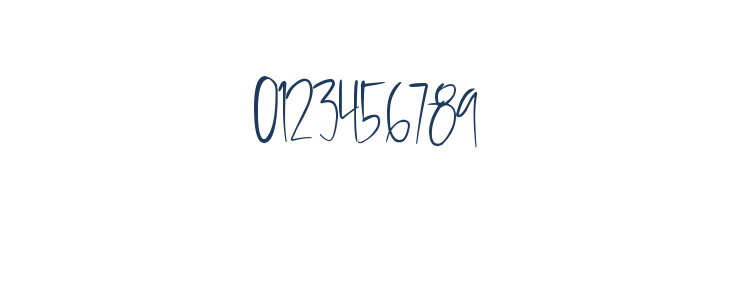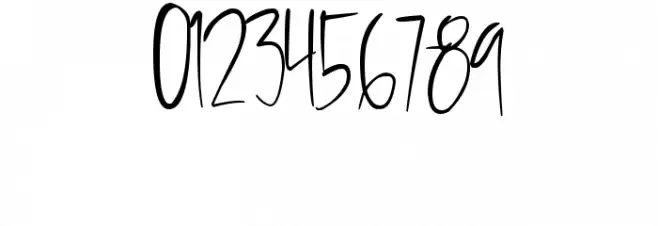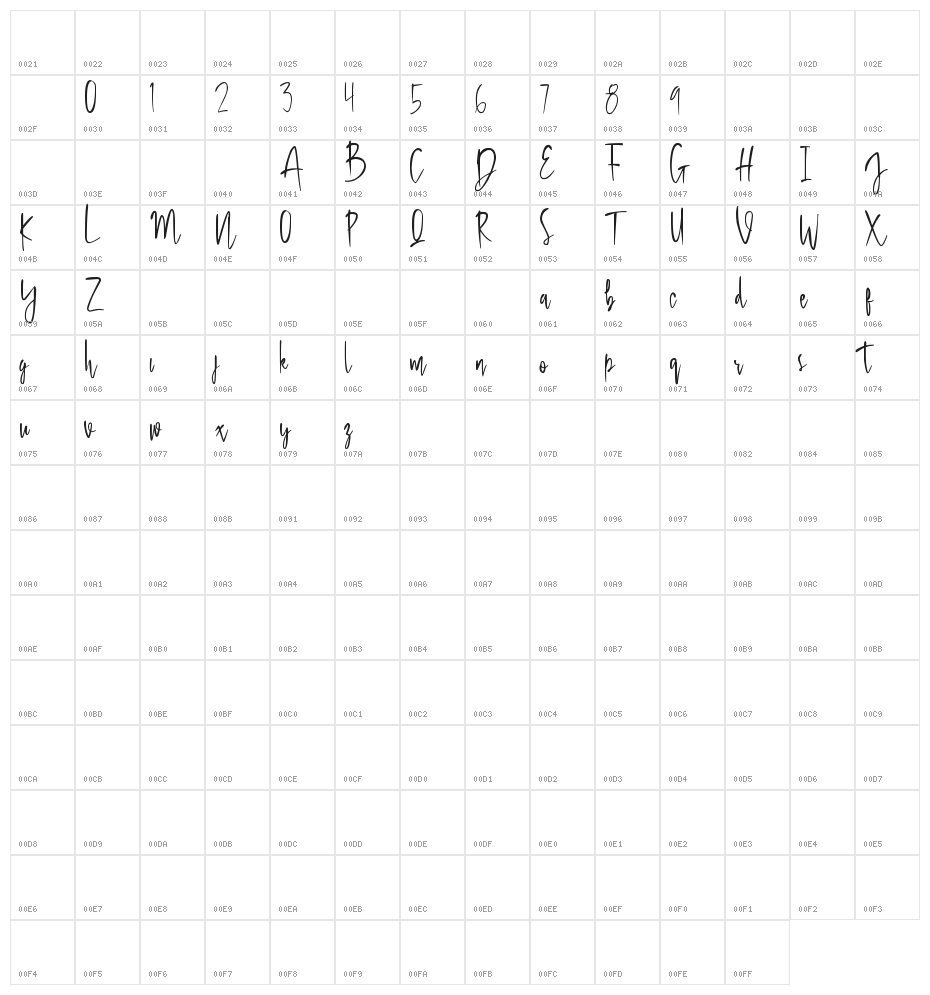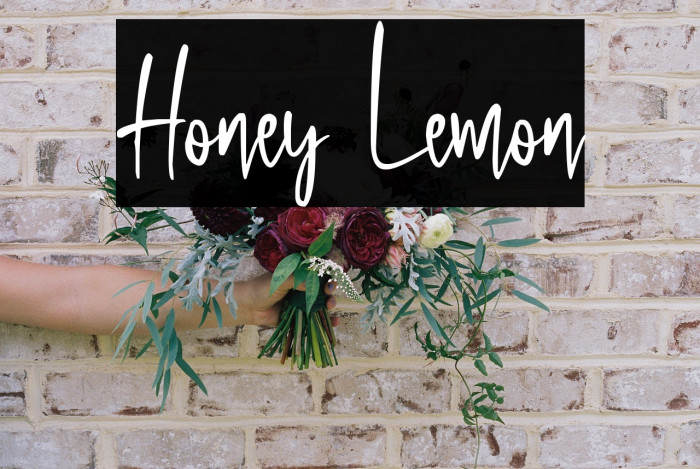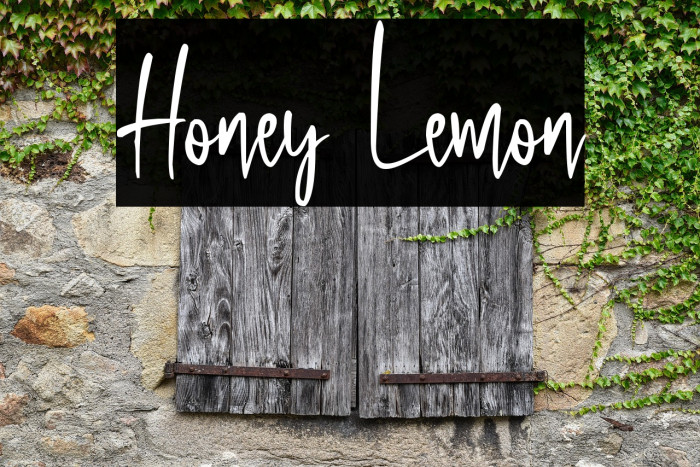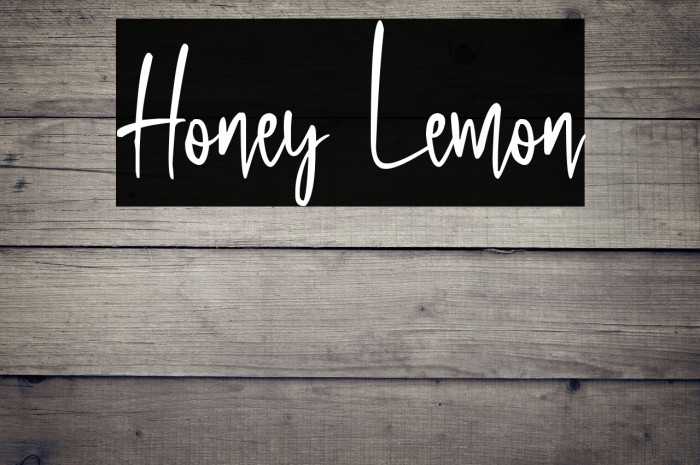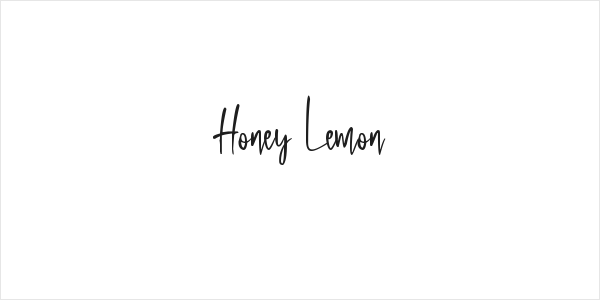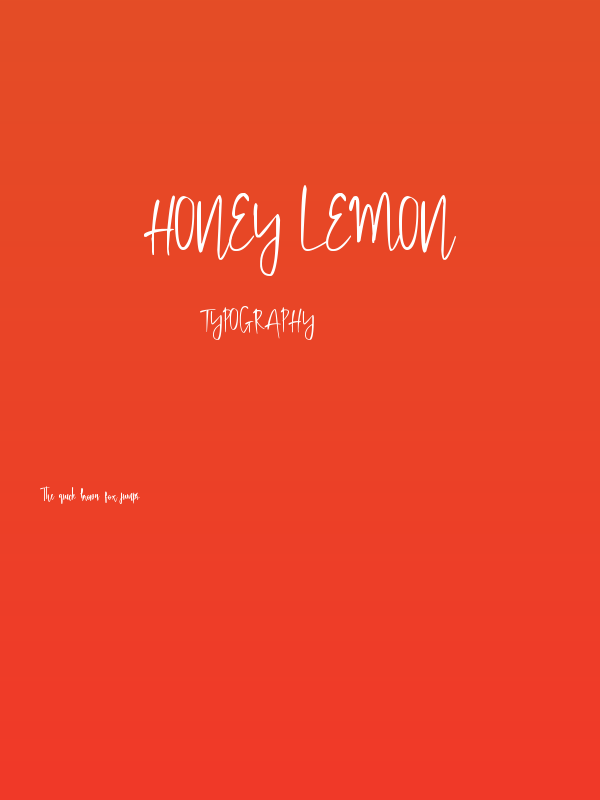
Honey Lemon Font
Honey Lemon Description
This font exudes a playful and whimsical charm with its handwritten style. The letters are characterized by their fluid, cursive strokes that vary in thickness, giving a lively and dynamic appearance. The uppercase letters are tall and slender, while the lowercase letters maintain a consistent flow with occasional loops and swirls. The numbers follow the same playful style, making them visually cohesive with the alphabet. The special characters are creatively integrated, maintaining the overall aesthetic. This font is perfect for projects that require a personal touch or a creative flair.
| Proposed Projects | Ideal for greeting cards, invitations, branding, and social media graphics. |